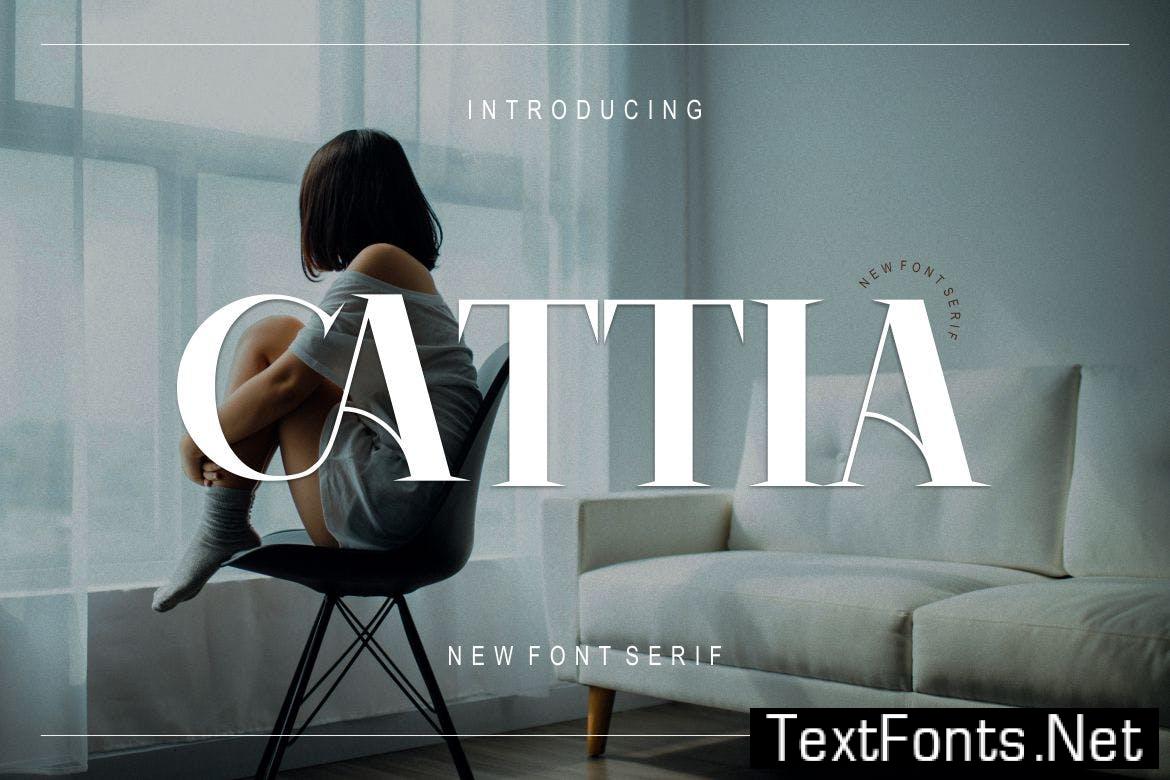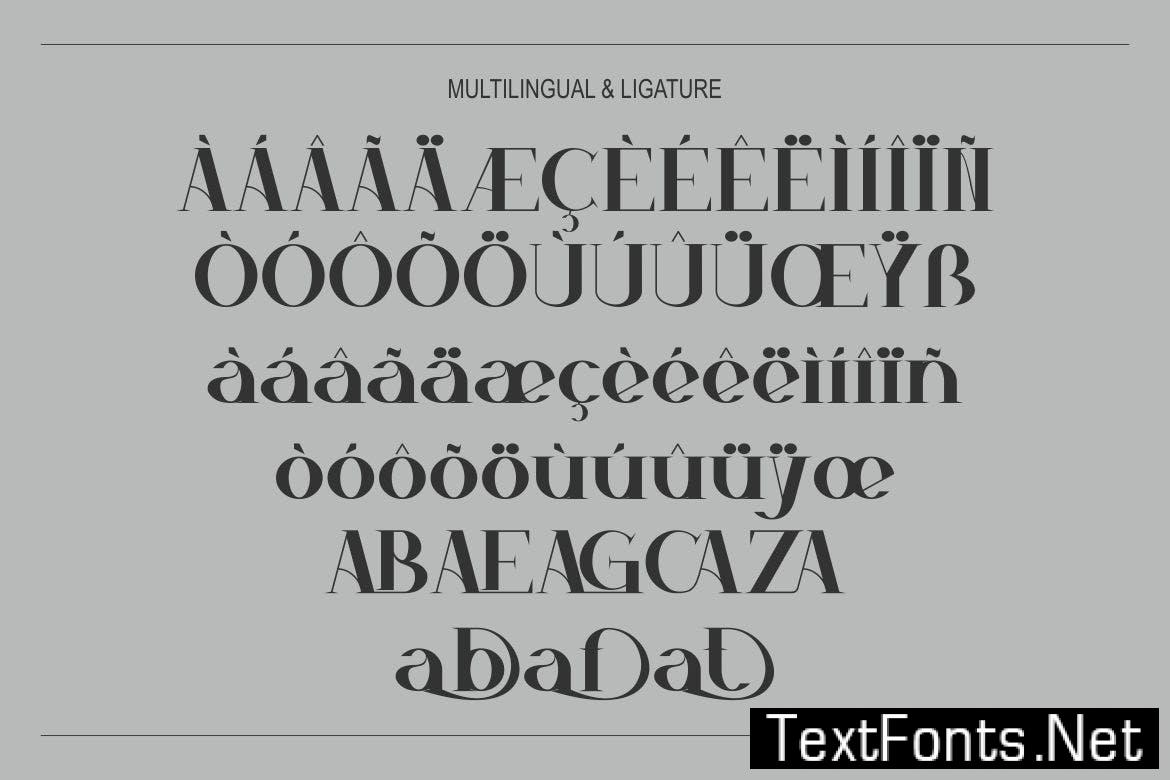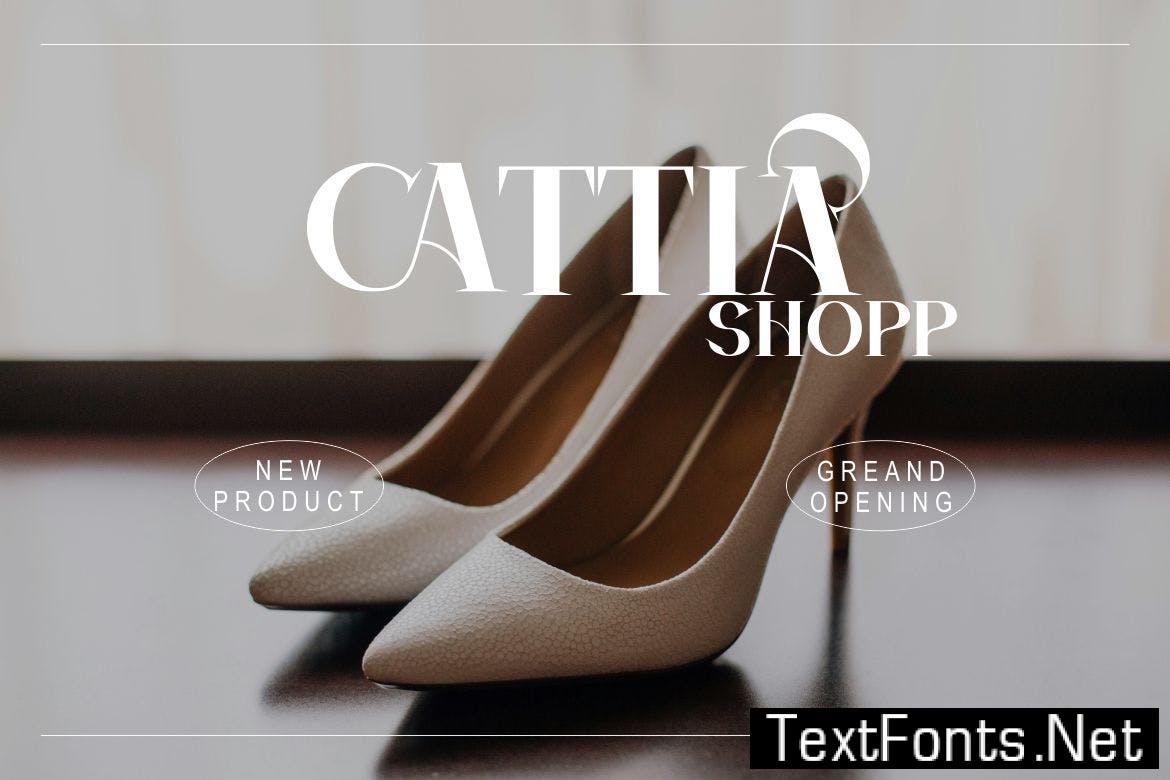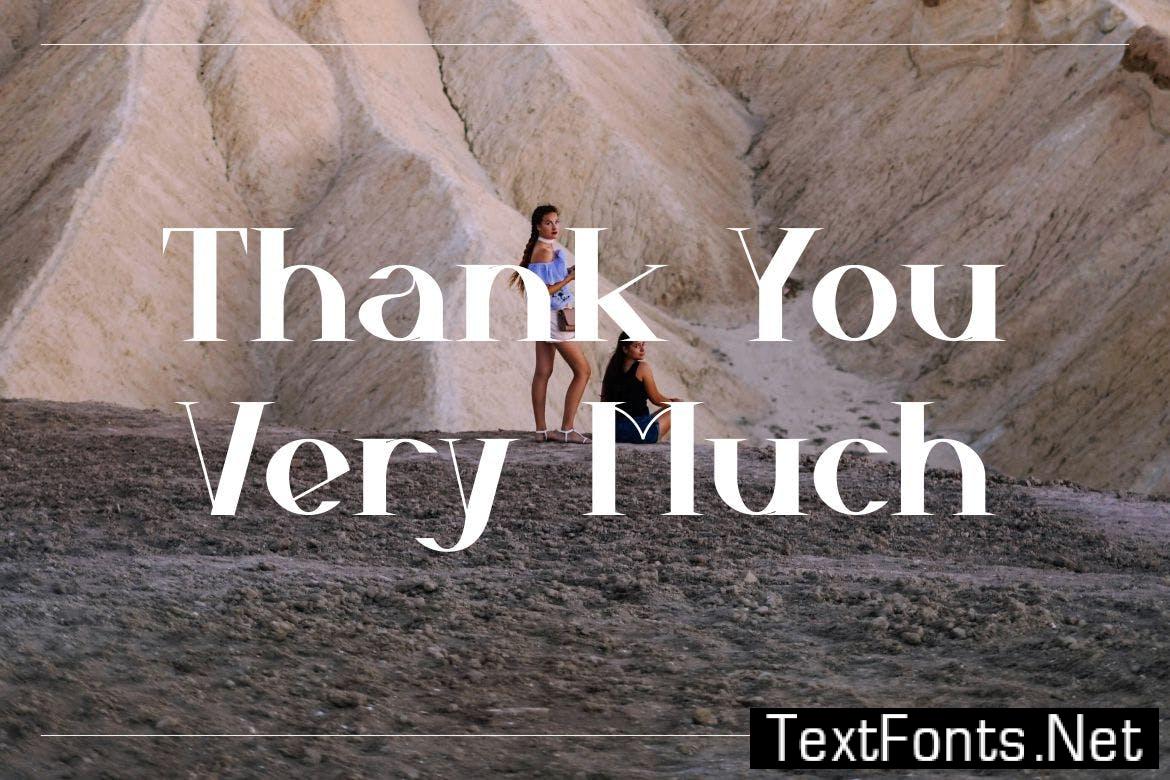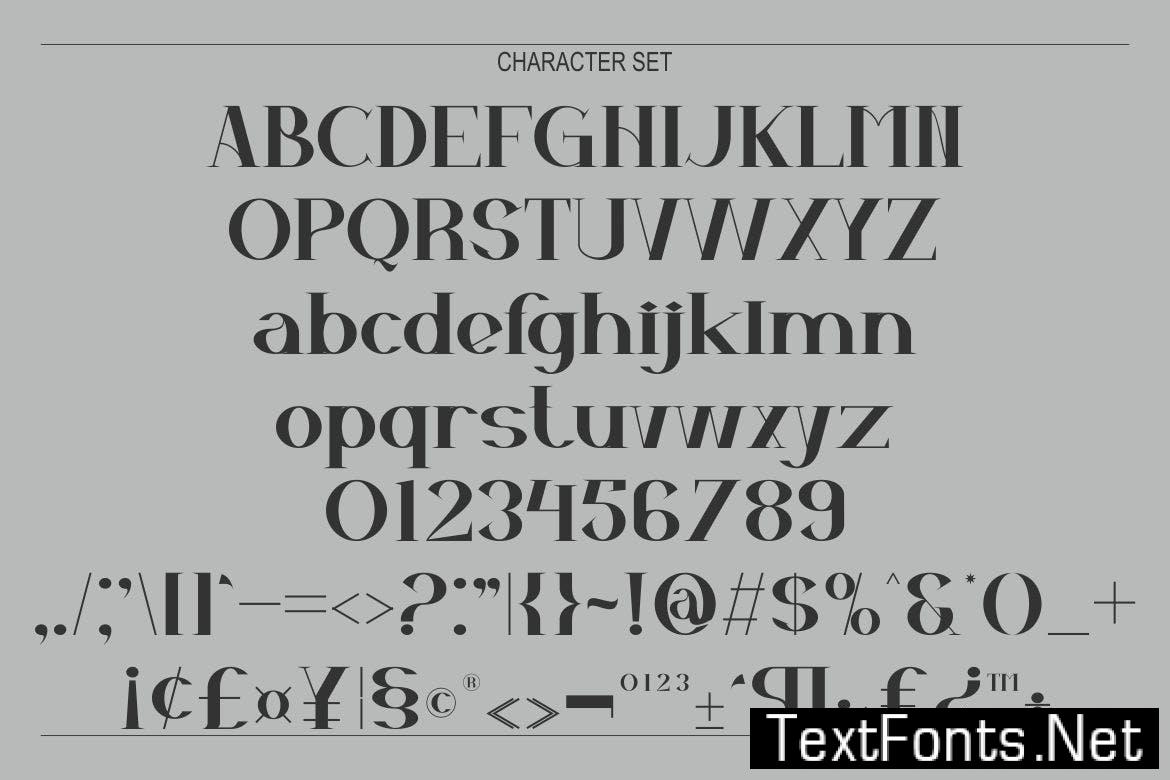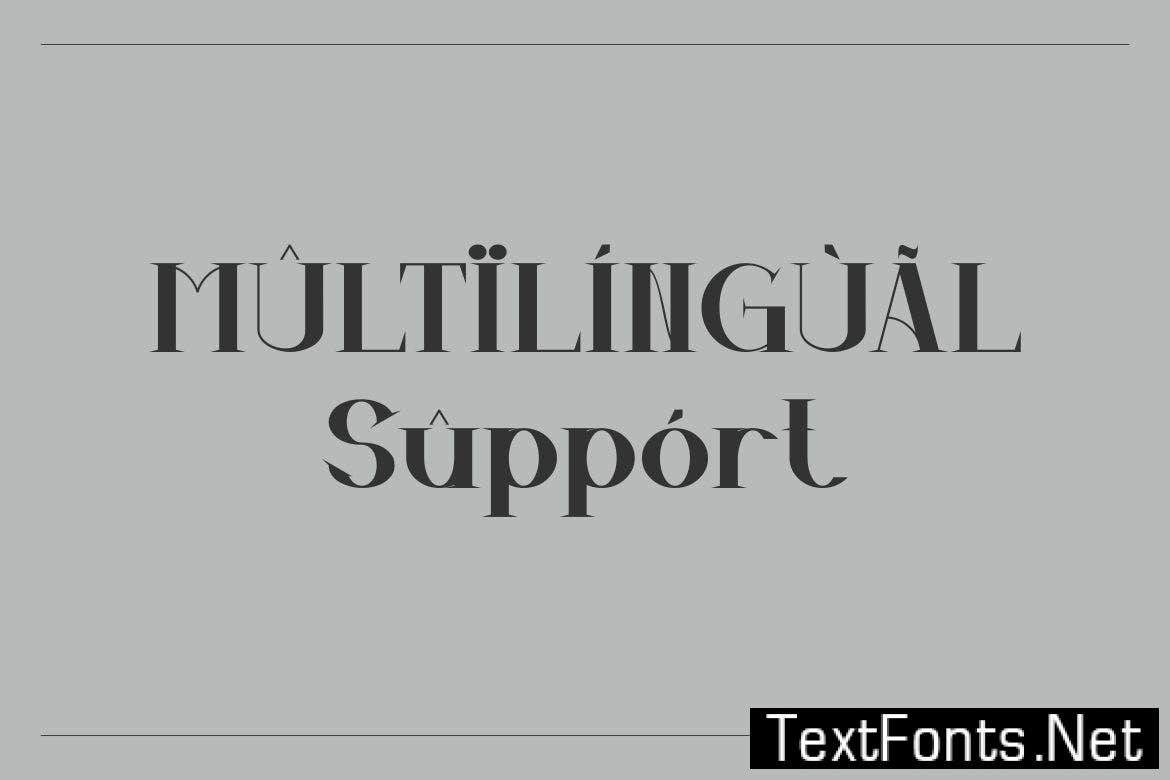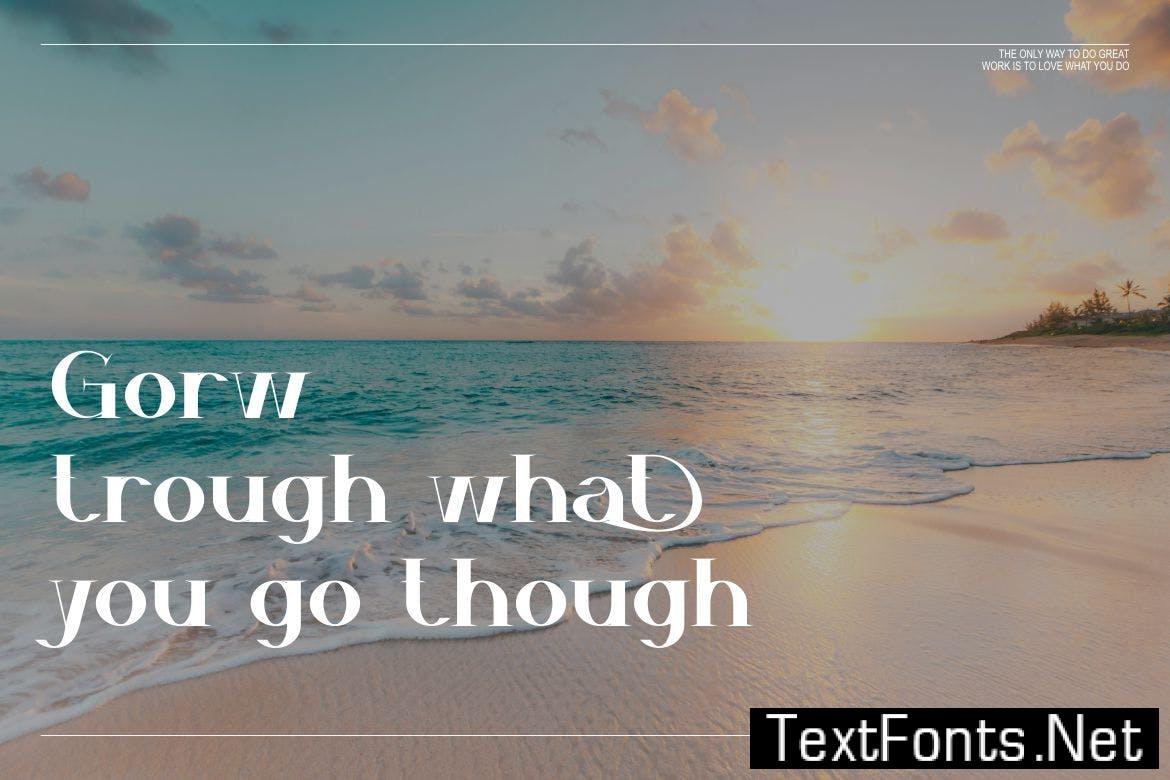
**Proudly present our new product Cattia Font**
* Cattia Font is a modern and authentic font. *
* Perfect for both professional and branding needs of a product. *
* This font is suitable for any branding project like quotes, logo, blog header, poster, banding, letter, invitation, stationery, *
* etc… Designed as a versatile and flexible that can be used on a range of projects and mediums. *
* outstanding in a wide range of contexts. *